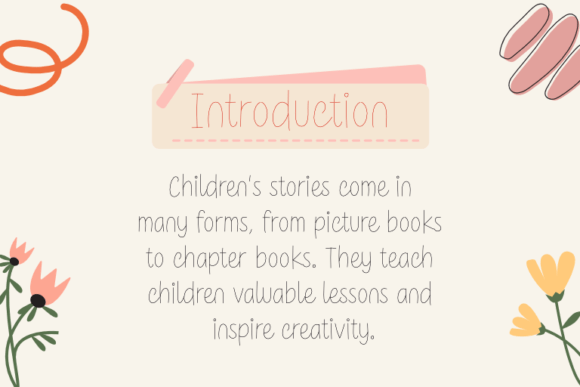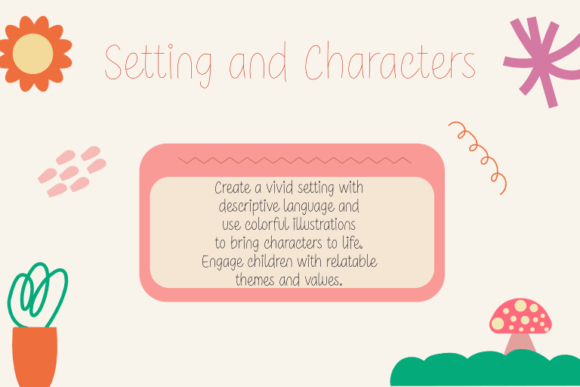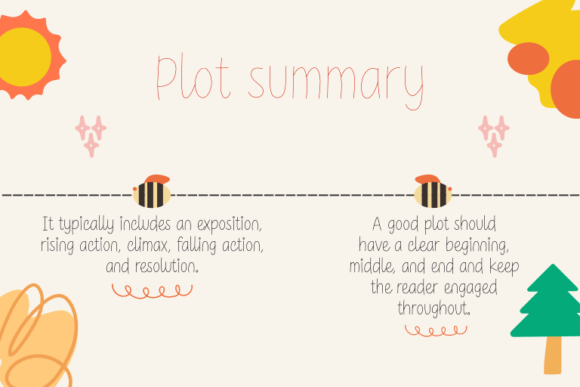
Introduction to Partly Notes Font
Have you ever found yourself staring at a blank canvas, desperately searching for the perfect font to bring your creative project to life? For designers, this moment of uncertainty is all too familiar. But what if you stumbled upon a design resource that could instantly elevate your work and make it stand out in a crowd?
Enter the Partly Notes Font, a stunning script font that boasts a minimalist design with subtle curves and loops. Its unique aesthetic is perfect for logos, branding, and designs that require a clean and sophisticated touch. Whether you’re working on a high-quality design or just need a reliable font for your next creative project, the Partly Notes Font is an invaluable addition to your design arsenal.
Key Features of Partly Notes Font
- Unique, hand-drawn design style perfect for creative projects
- Perfect for use as a design element in various creative projects, including logos, typography, and graphics
Honest Review: Partly Notes Font
As a designer, I’m always on the lookout for high-quality design resources to enhance my creative projects. Recently, I stumbled upon the Partly Notes Font, and I’m excited to share my honest review with you.
However, there are a few limitations to consider: ⚠️ The font only comes in a few weights, which might limit its use in certain projects. Additionally, the transparent background option can sometimes be tricky to work with, especially when combining it with other design elements.
Overall, I’m impressed with the Partly Notes Font. It’s a great addition to any designer’s toolkit, and its free download option makes it an even more attractive choice. While it may have some limitations, the font’s versatility and high-quality design make it a great resource for any creative project.
Here are some key features to consider:
- Modern and sleek design
- High-quality font
- Available for digital and printed materials
Partly Notes Font
Tips for Getting the Most Out of Partly Notes Font
For the best results, use Partly Notes Font on a transparent background to create a clean and minimalist look. You can also experiment with different font sizes and colors to add visual interest to your design.
Partly Notes Font is perfect for creative projects that require a unique and high-quality font. It’s ideal for use in presentations, documents, and digital designs. With its transparent background, it’s also a great choice for designing logos, icons, and graphics.